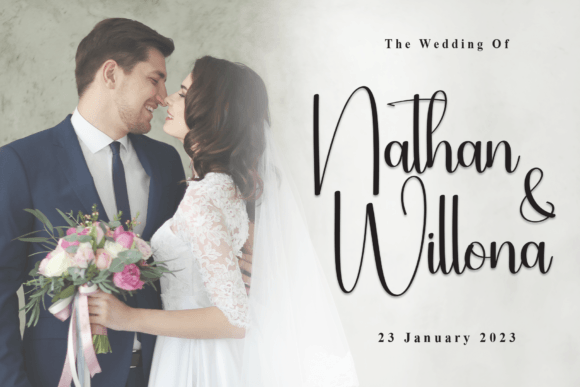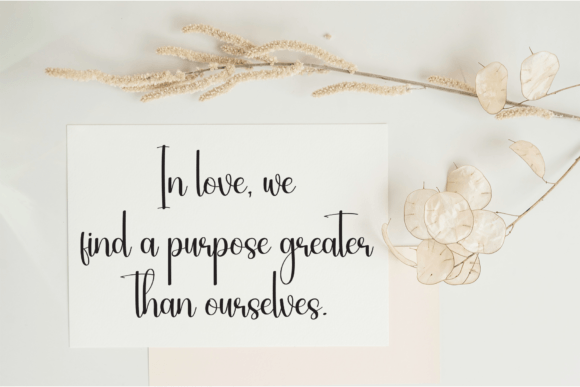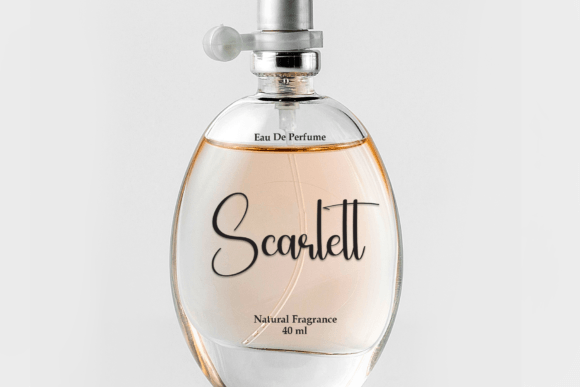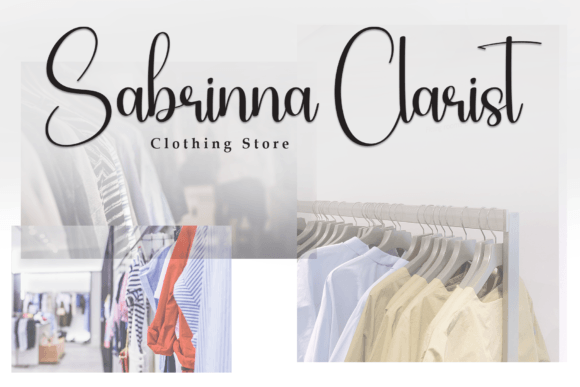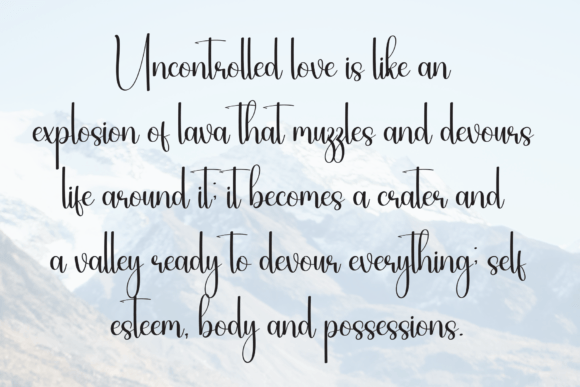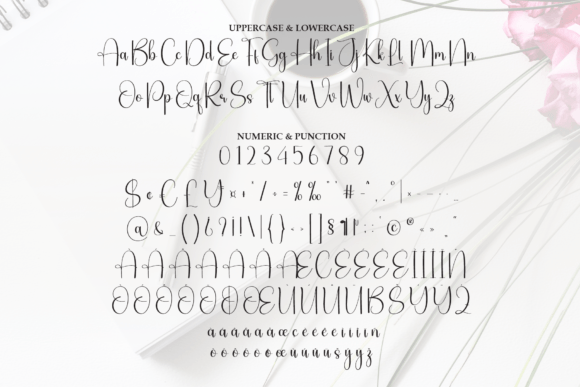
The Art of Elegant Typography: Unleashing the Charm of Calligraphy Font
Have you ever sat down with a blank sheet of paper and a pen, letting your creativity flow freely as you let your handwriting take over? It’s a moment of pure bliss, isn’t it? As designers, we often find ourselves seeking that same sense of fluidity and organic charm in our digital work, and that’s where the Calligraphy Font comes in – a beautiful, handwritten font that captures the essence of free-spirited creativity.
With its fluid strokes and organic lines, the Calligraphy Font is perfect for adding a touch of warmth and personality to various design projects. Whether it’s branding, invitations, or social media graphics, this font is a valuable asset for designers looking to infuse their work with a sense of casual elegance and freshness.
- Unique Characteristics: Calligraphy fonts are known for their flowing, cursive connections between letters, often with decorative flourishes and swashes.
- Script Variations: Calligraphy fonts can come in various script styles, including copperplate, Spencerian, and brush script, each with its own unique characteristics and flair.
- Style Options: Calligraphy fonts often include multiple style options, such as regular, bold, italic, and swash, allowing users to customize the look and feel of their text.
Overall, I’d say the Calligraphy Font is a beautiful addition to any design project. ✨ Its elegant, cursive script is perfect for creating a luxurious and sophisticated look.
- ✨ High-quality rendering: The font looks great at any size, making it perfect for everything from small text to large headings.
- ✨ Versatility: Calligraphy Font is suitable for a wide range of designs, from formal invitations to casual blog posts.
- ✨ Easy to read: Despite its cursive nature, the font is surprisingly easy to read, even at small sizes.
- ⚠️ Limited language support: Unfortunately, Calligraphy Font only includes support for a limited number of languages, which may be a problem for designers working on multilingual projects.
- ⚠️ Limited customizability: While the font looks great, it’s not particularly easy to customize or modify, which may be a problem for designers who need a high degree of control.
Overall, I think the Calligraphy Font is a solid choice for any design project that requires a touch of elegance and sophistication. While it may have some limitations, its beautiful script and high-quality rendering make it well worth considering.